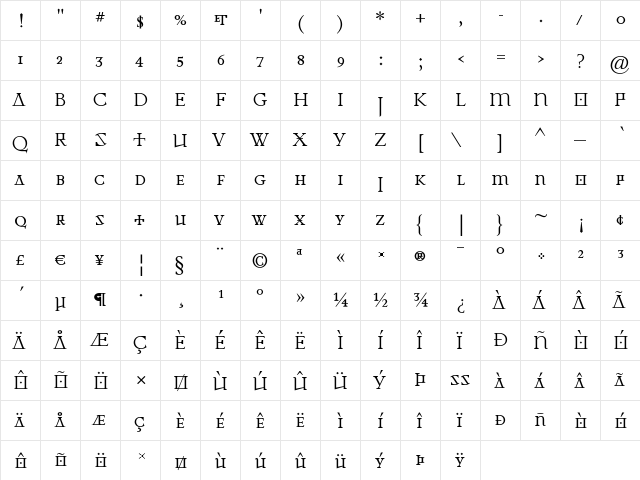
PrioriSerRegularSCAlt Regular
| Designer | Jonathan Barnbrook |
Design Context for PrioriSerRegularSCAlt Typeface
PrioriSerRegularSCAlt offers clean, dependable letterforms without strong stylistic allegiance, making it a practical choice for designers who need flexibility.